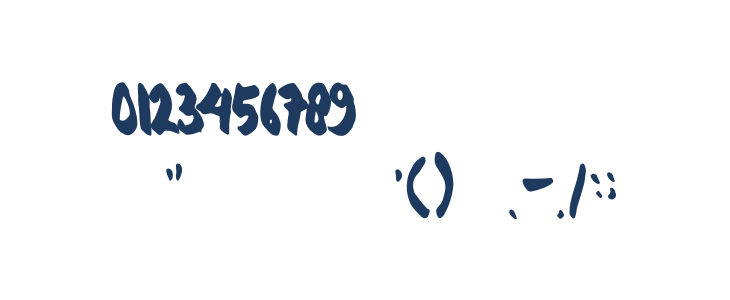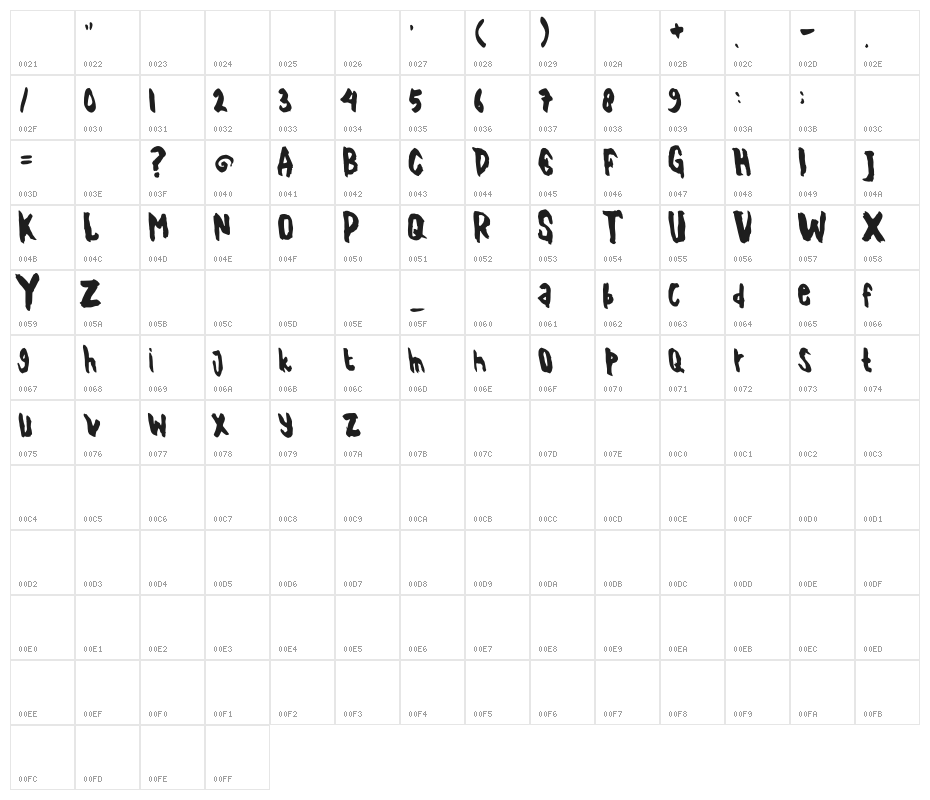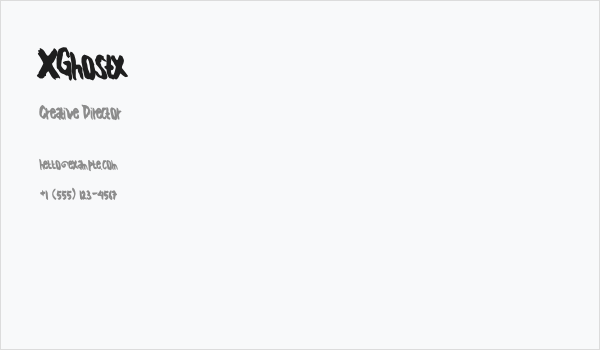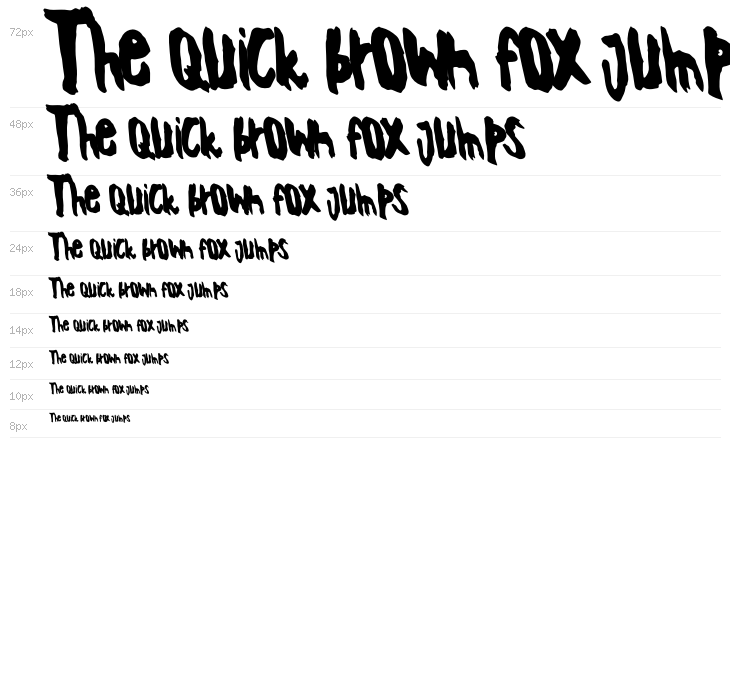
XGhostx Font
XGhostx Description
This font features a bold and expressive style with a hand-drawn appearance. The characters are irregular and have a rough, textured look, giving them a dynamic and energetic feel. The uppercase and lowercase letters are distinct, with a playful and artistic flair. The numbers and special characters maintain the same bold and rugged aesthetic, making the font suitable for creative and informal designs. Its unique style captures attention and adds a personal touch to any project.
| Proposed Projects | Ideal for posters, album covers, graffiti art, and creative branding projects. |